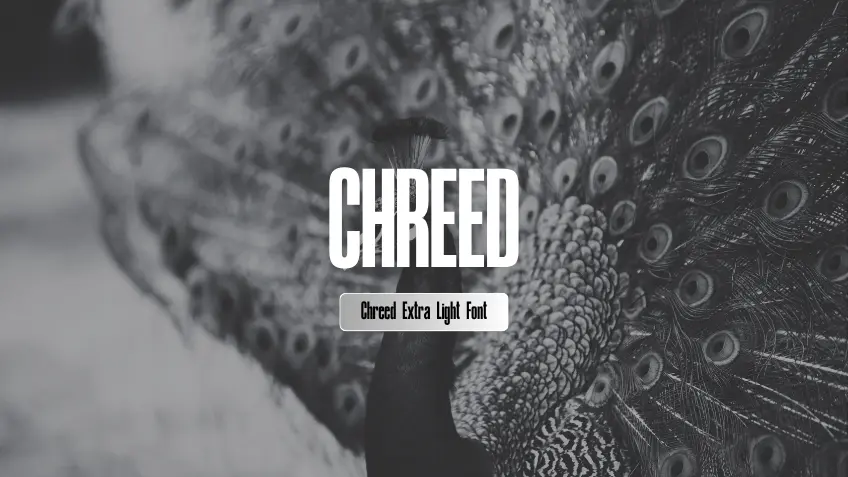
The font Chreed Extra Light, designed by Glyphminds, falls under the Sans Serif category & Chreed font family. Its smooth, flowing letterforms make it a versatile choice for projects that require both elegance and readability. Chreed is particularly well-suited for Branding, Logo, Web Design, Headlines and Display Text and Creative Design Projects. With its balance of simplicity and decorative appeal, this font brings a polished touch to both personal and professional designs.